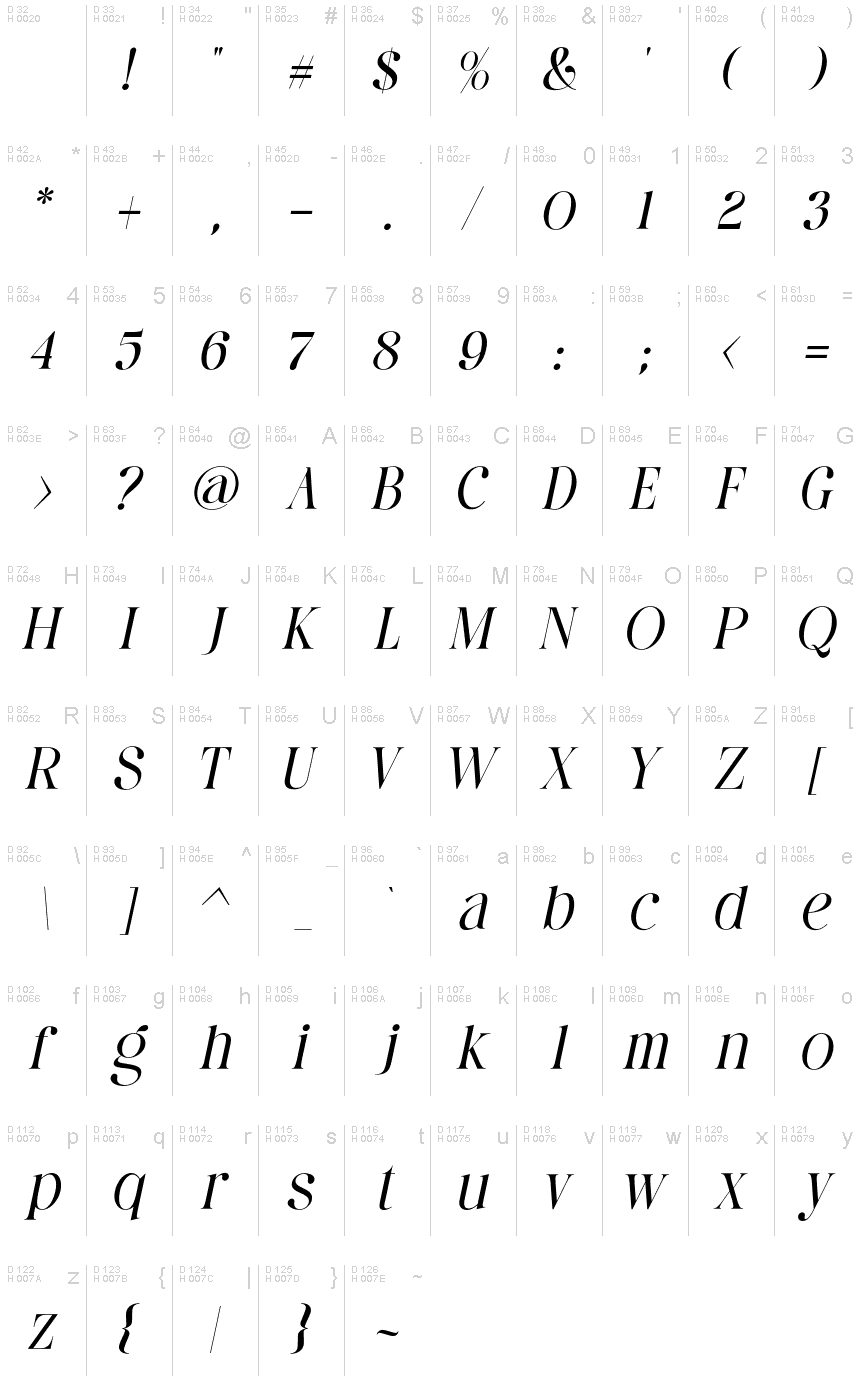
Dating Historia Italic
Dating Historia Italic is a light, narrow serif font designed by ToniStudio. Perfect for creating a classic and sophisticated feel, this font is ideal for wedding invitations, book covers and certificates.